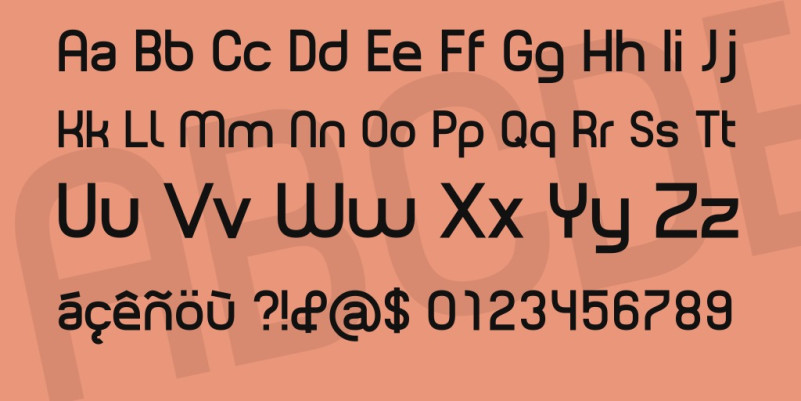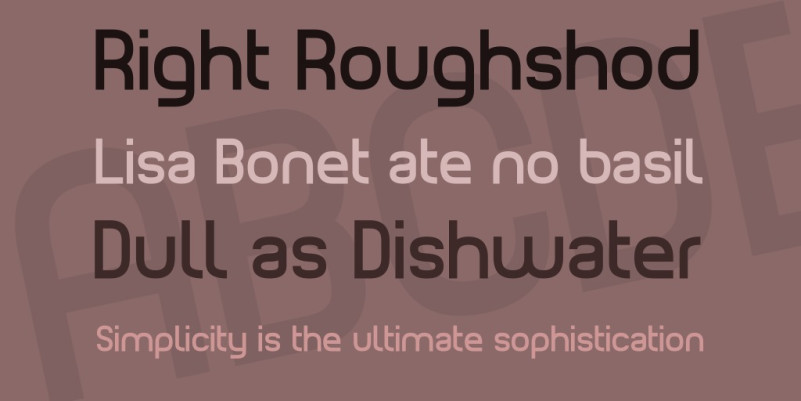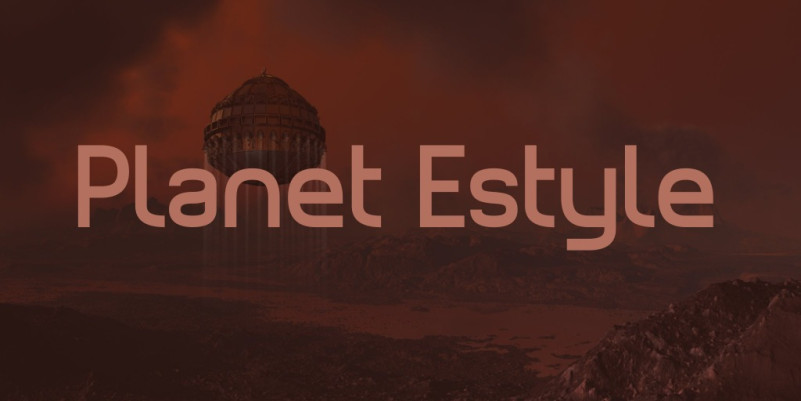
Planet Estyle Font
Planet Estyle Display Font,  Perfectly fit for branding, logo, wedding things, greeting cards, fashion, lookbook, marketing promotion, anytime you want to look fancy elegant but still casual.
This Planet font is a PC TrueType font. It has a full character set in both upper- and lower case, full punctuation, most international characters, accents etc. and it contains an extensive kerning table.